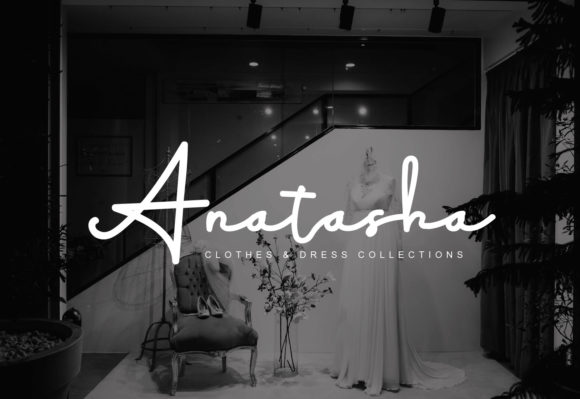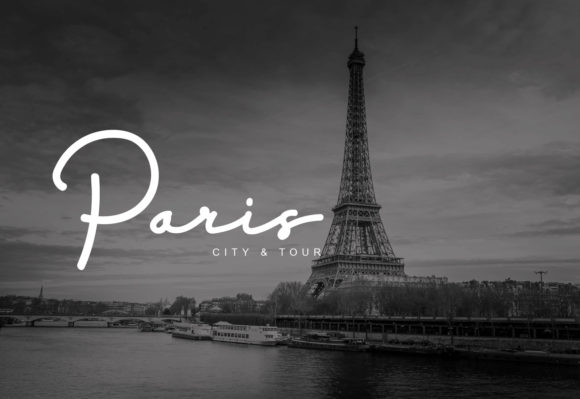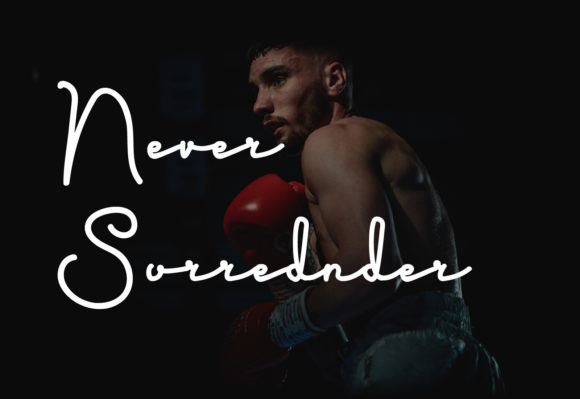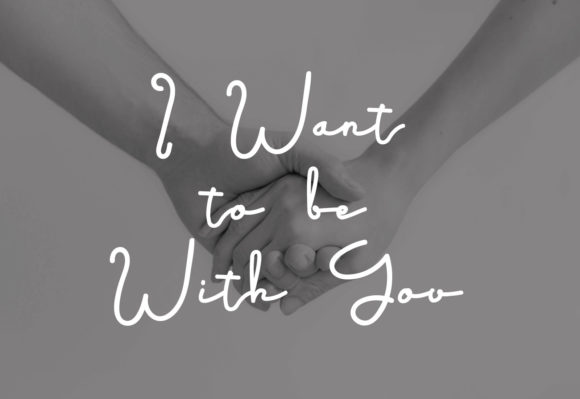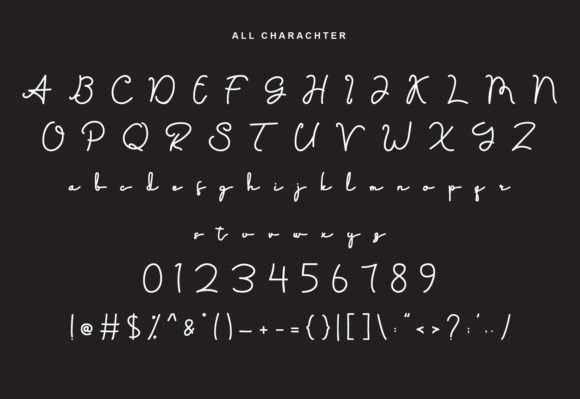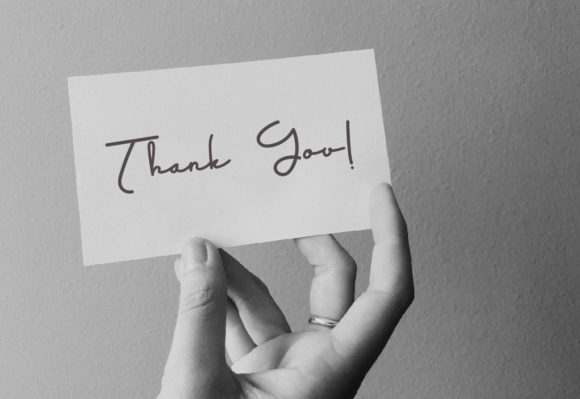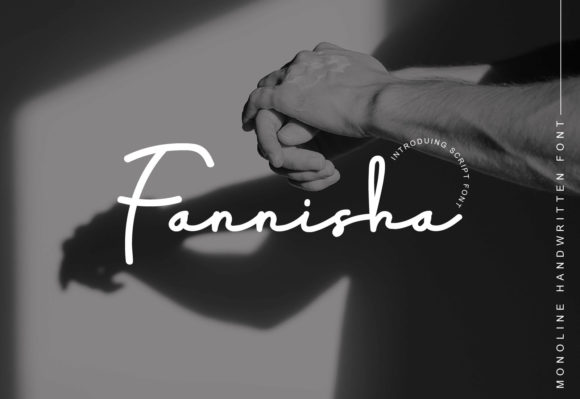
Fannisha Font: The Perfect Cursive Script for Your Creative Projects
Are you a designer or crafter looking for a beautiful and elegant handwritten font to add a personal touch to your creations? Look no further than Fannisha Font, a stunning cursive script that’s perfect for a variety of designs, from wedding invitations and thank you cards to logos and greeting cards.
What is Fannisha Font?
Fannisha Font is a gorgeous cursive and beautiful handwritten font that’s designed to bring a touch of elegance and sophistication to your creative projects. Its flowing lines and delicate curves make it perfect for designs that require a personalized style, such as:
- Wedding invitations and save-the-date cards
- Greeting cards for special occasions
- Stationery and paper crafts
Why Choose Fannisha Font?
So, what makes Fannisha Font so special? Here are just a few reasons why designers and crafters love this beautiful font:
- Elegant and sophisticated: Fannisha Font has a timeless, elegant feel that’s perfect for designs that require a touch of sophistication.
- Versatile: This font is incredibly versatile and can be used for a wide range of creative projects, from wedding designs to logos and branding materials.
- Easy to read: Despite its cursive nature, Fannisha Font is easy to read, making it perfect for designs that require a clear and legible message.
- Unique: Fannisha Font has a unique and distinctive feel that sets it apart from other fonts, making it perfect for designers and crafters who want to add a personal touch to their creations.
How to Use Fannisha Font in Your Designs
Using Fannisha Font in your designs is easy! Here are a few tips to get you started:
- Pair it with other fonts: Fannisha Font looks beautiful when paired with other fonts, such as sans-serif fonts like Arial or Helvetica.
- Experiment with colors: Fannisha Font looks stunning in a range of colors, from classic black and white to bold and bright hues.
- Add embellishments: Consider adding embellishments, such as flowers or leaves, to give your designs an extra touch of elegance.
- Use it for headlines and titles: Fannisha Font is perfect for headlines and titles, where its elegant and sophisticated feel can really shine.
Tips and Tricks for Working with Fannisha Font
Here are a few more tips and tricks to help you get the most out of Fannisha Font:
- Adjust the size: Experiment with different font sizes to find the perfect size for your design.
- Play with spacing: Adjust the spacing between letters and words to create a more elegant and sophisticated feel.
- Use it for digital and print designs: Fannisha Font is perfect for both digital and print designs, from social media graphics to business cards and brochures.
Fannisha Font is a beautiful and elegant cursive script that’s perfect for designers and crafters who want to add a personal touch to their creations. With its flowing lines, delicate curves, and timeless feel, it’s the perfect choice for a wide range of creative projects, from wedding invitations and thank you cards to logos and greeting cards. So why not give Fannisha Font a try and see how it can elevate your designs to the next level?